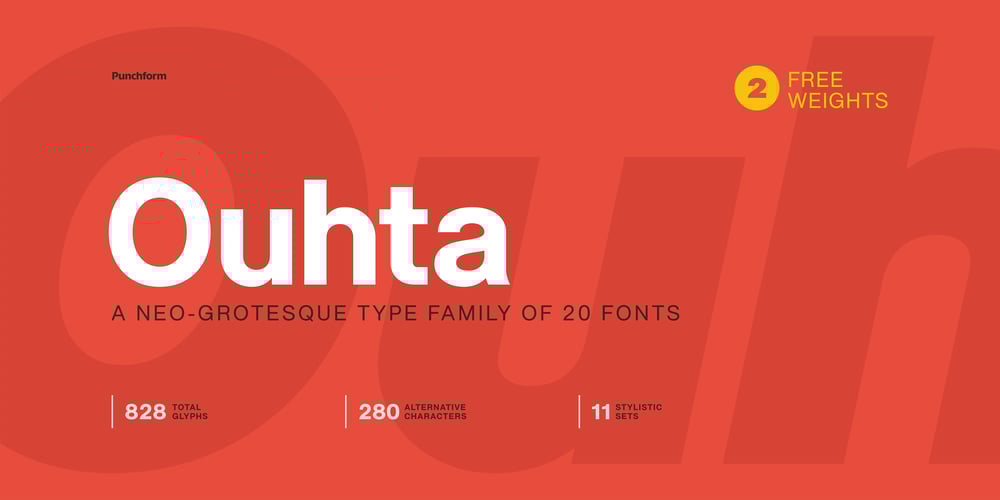
Ouhta Font Family was designed by Mihai Sorin and published by Punchform. Ouhta contains 22 styles and family package options. Features:• 828 glyphs in 20 fonts• 280 alternative glyphs• 11 stylistic sets• 15 OpenType featuresOuhta is a neo-grotesque sans-serif font designed by Mihai Sorin and published by Punchform in 2021. The family has 20 weights — 10 uprights and 10 italics — ranging from Thin to Black. Each font contains 828 glyphs and supports over 220 languages.Ouhta allows graphic designers to create advanced typographical layouts by offering 280 alternative glyphs and 11 stylistic sets. It comes with 15 powerful Opentype features such as stylistic alternates, contextual alternates, standard ligatures, glyph composition/decomposition, localized forms, case-sensitive forms, ordinals, proportional figures, tabular figures, slashed zero, numerators, denominators, fractions, superscript, and subscript.The Light and ExtraBold weights are free for both personal and commercial use, so you can use them however and anywhere you want.